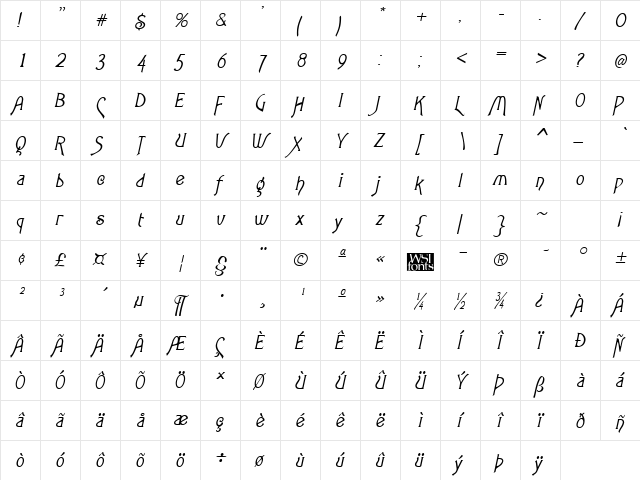
Agatha Italic
Design Context for Agatha Typeface
Agatha is a composed and adaptable typeface that performs quietly and consistently across a wide range of design contexts. Its italic angle brings a sense of urgency and motion to the letterforms.
Pro Tip: Use Agatha for emphasis, pull quotes, and subheadings where its slanted energy can add rhythm to the layout.